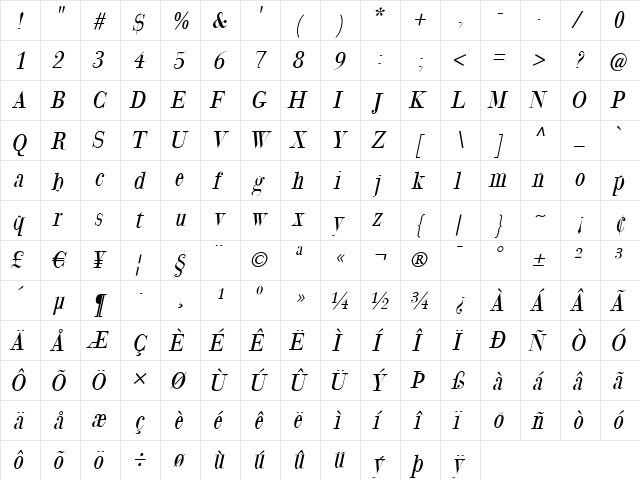
GiambattistaDueMille Medium Italic
Design Context for GiambattistaDueMille Typeface
GiambattistaDueMille is a composed and adaptable typeface that performs quietly and consistently across a wide range of design contexts. The dynamic lean of this cut emphasises speed and emphasis in any layout.
Pro Tip: Try GiambattistaDueMille for annotation and caption copy alongside an upright companion — the contrast in angle creates a dynamic but ordered typographic system.